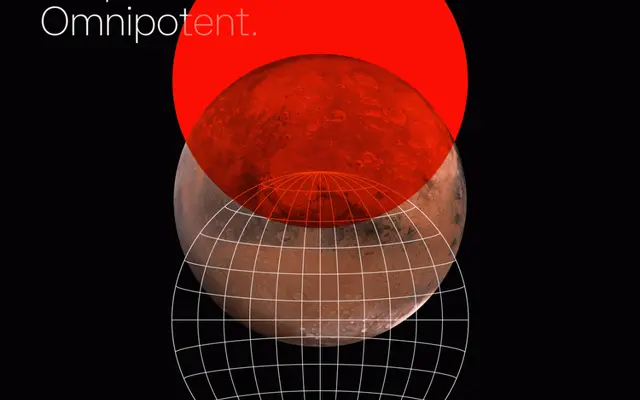
At Aero
A geometric sans-serif by Pedro Arilla drawing on aerodynamic design, spanning ten weights from the hair-thin Air to the heavy Super, each with a matching italic.
Designed by Pedro Arilla and released in May 2022, At Aero pairs curved forms with sharp terminals to produce a typeface with a distinct, speed-inflected character. The family runs to 20 styles across ten weights, with a dedicated Retina cut optimised for high-density screens, and is also available as a variable font with weight and italic axes. OpenType features include solid numerals, circled numerals, Roman numerals, old-style figures and an alternate at sign, giving it a broad range of typographic options.
A geometric sans-serif with aerodynamic influences, combining curving forms and sharp lines in a manner consistent with futurist geometric traditions.